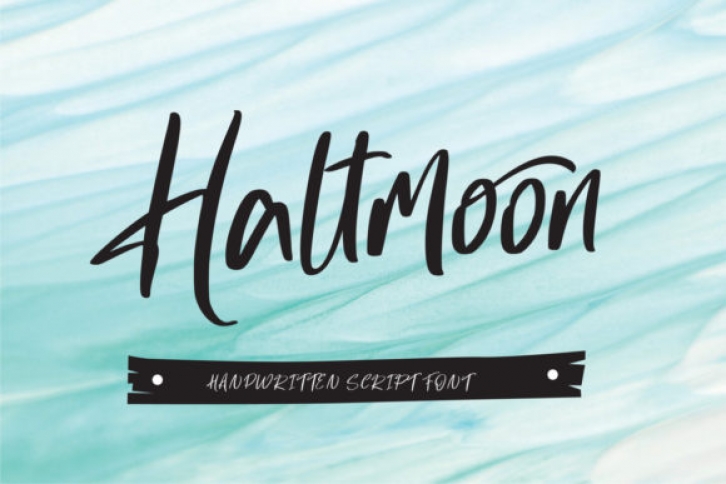
Haltmoon is a gorgeous and bold handwritten font. This font reads as strong, confident, and dynamic and can add tons of nostalgic character to your designs.